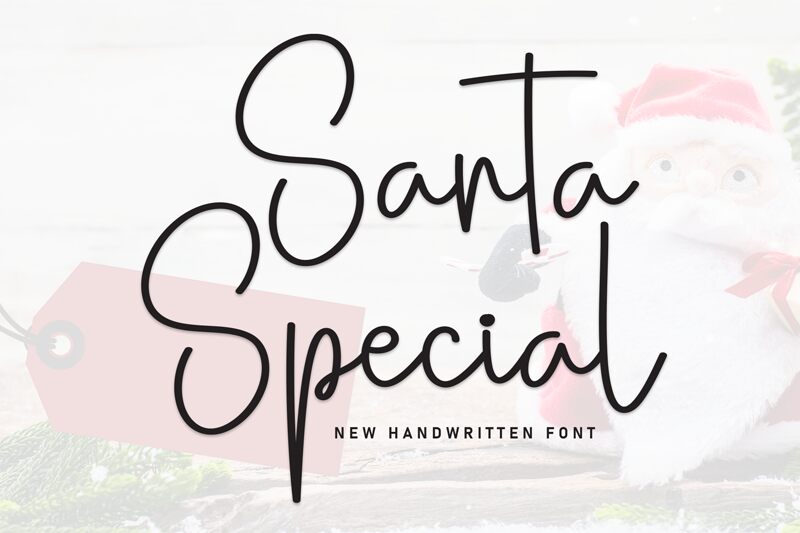
Santa Special
Santa Special font by Scratchones is a free handwritten light font with a natural flow and casual elegance. Its irregular letter shapes mimic handwriting, giving it a personal touch for contemporary usage. Each natural stroke creates an authentic effect with simplicity and stylishness some of this typeface's most distinctive features.
Use Santa Special in branding and visual identities, signage, badges, prints, postcards, online greeting cards design, profile presentations of influencers or public figures at social media accounts, invitations for events that are special to you such as weddings and birthdays.